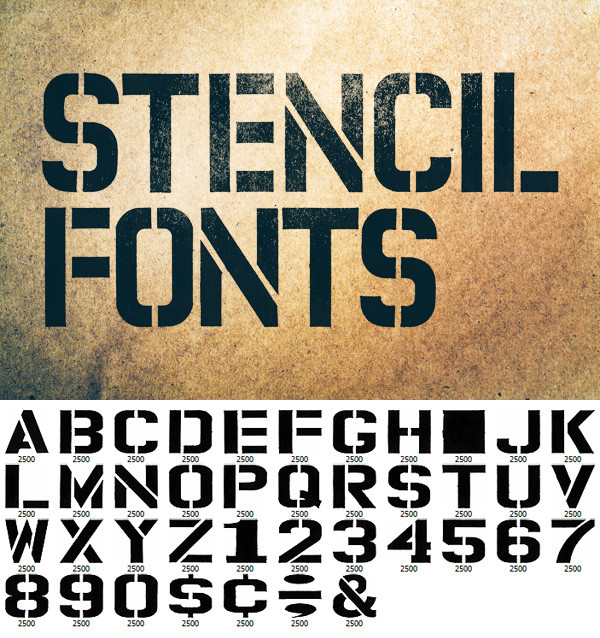
Download this set of 40 stencils fonts. These brushes have a permanent marker texture and works great with grunge artworks!
do you recall which type font was used for the "stencil font" lettering?